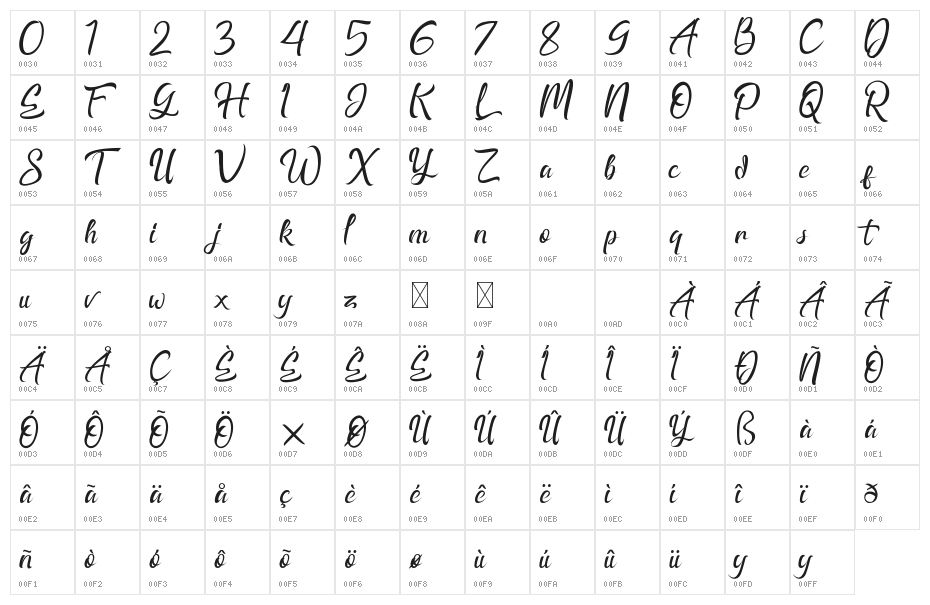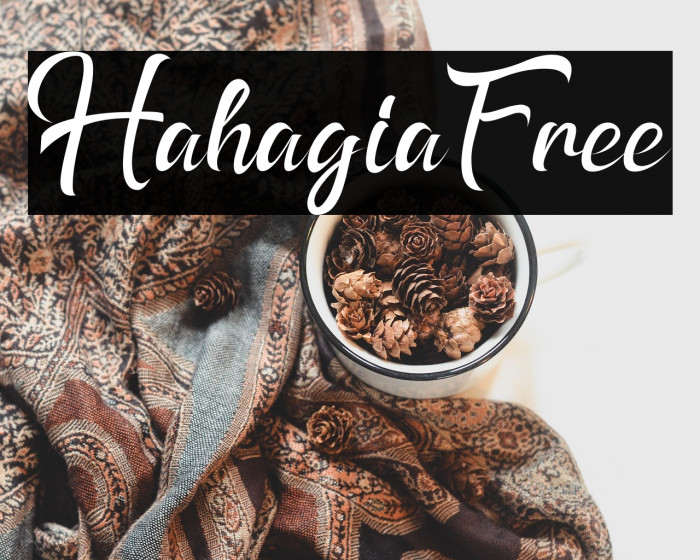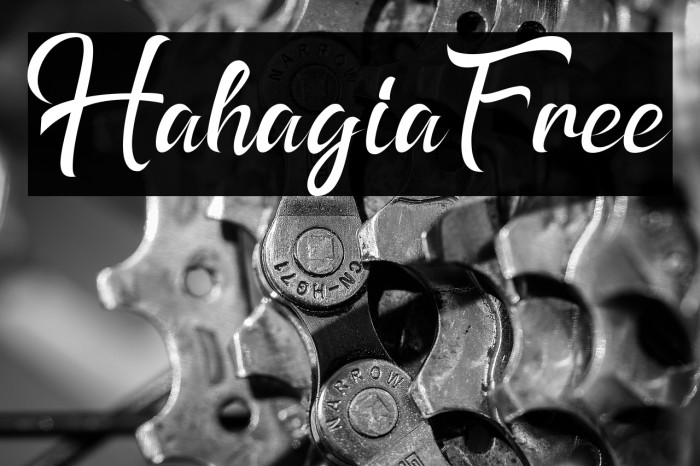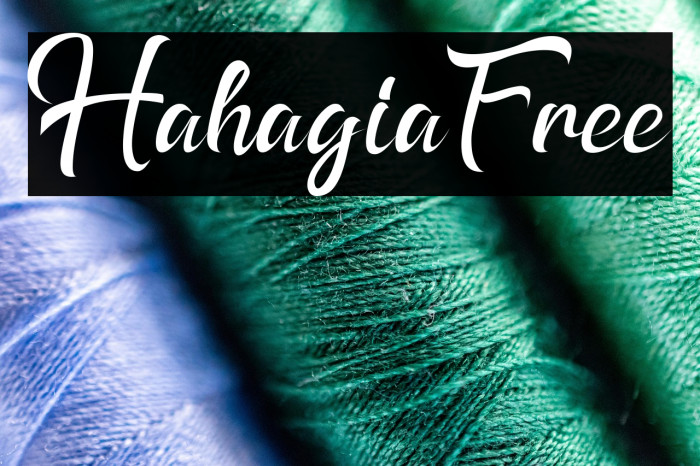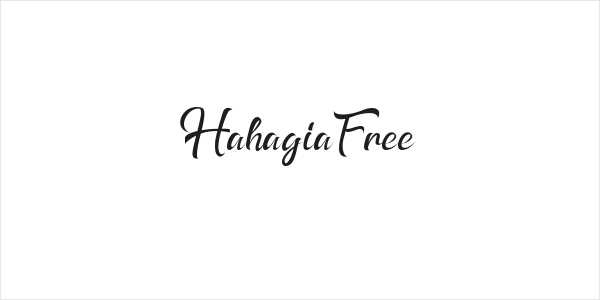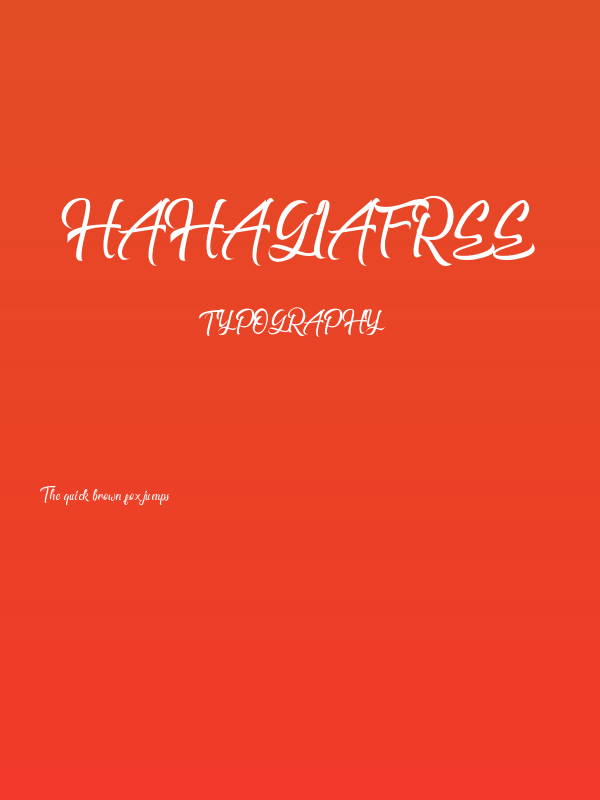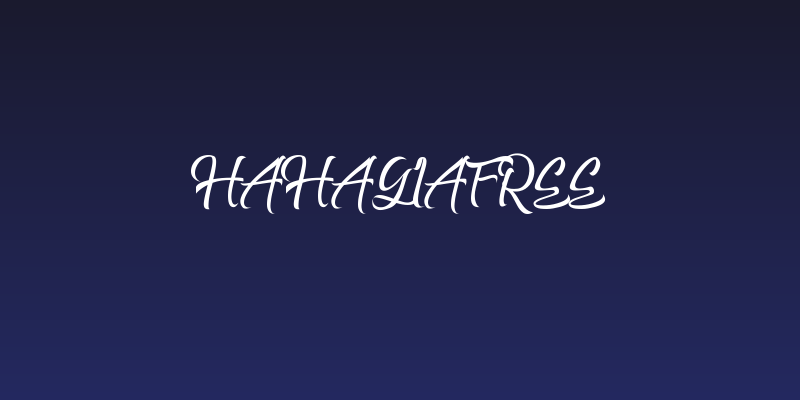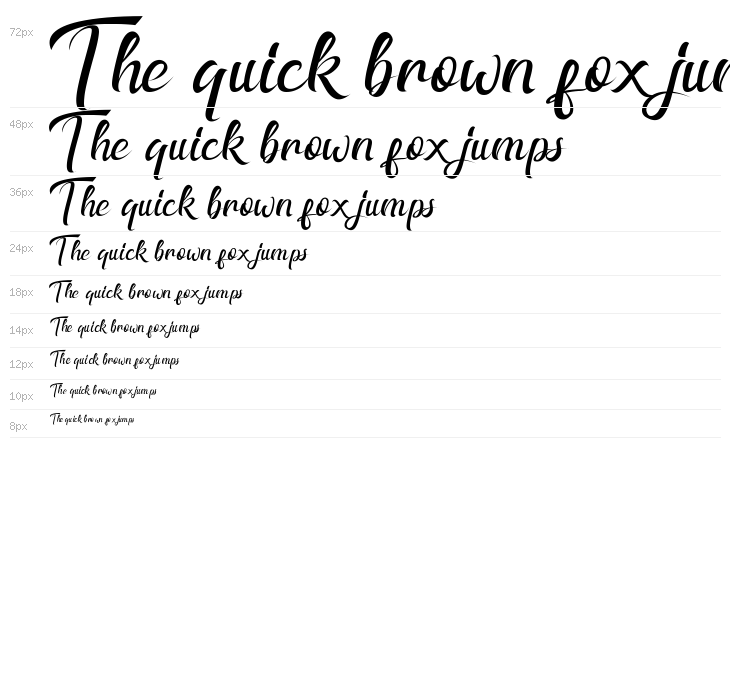
HahagiaFree Font
HahagiaFree Description
This font exudes a dynamic and elegant script style, characterized by its fluid, cursive strokes and a sense of movement. The uppercase letters are bold and sweeping, with a graceful flow that suggests a handwritten quality. The lowercase letters maintain this fluidity, offering a harmonious balance between each character. The numbers are equally stylish, integrating seamlessly with the overall design. The special characters retain the same aesthetic, ensuring consistency across all elements. This font's design is both artistic and legible, making it suitable for a variety of creative applications.
| Overall Style | Elegant, Artistic |
| Proposed Projects | Ideal for wedding invitations, branding projects, greeting cards, and elegant packaging designs. |